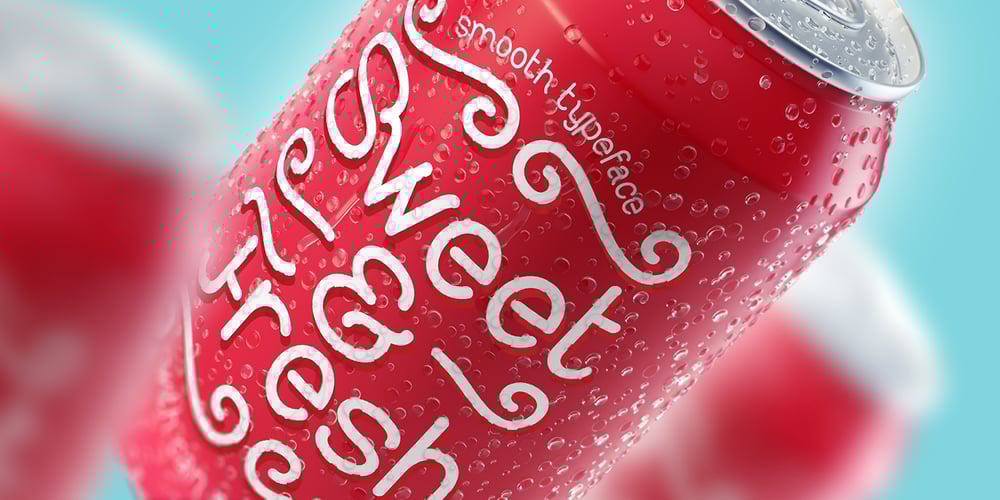
Sweet and Fresh Font Family was designed by Gleb Guralnyk and published by Gleb Guralnyk. Sweet and Fresh contains 1 styles and family package options. This smooth, modern typeface named “Sweet & Fresh” has a trendy look with nice rounded shapes and multi-lingual support. Thank you and have a nice day!